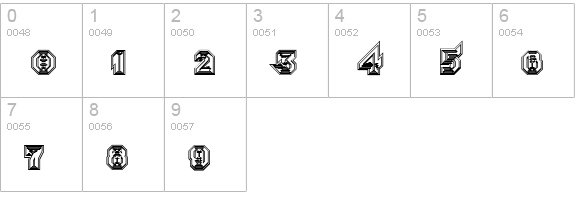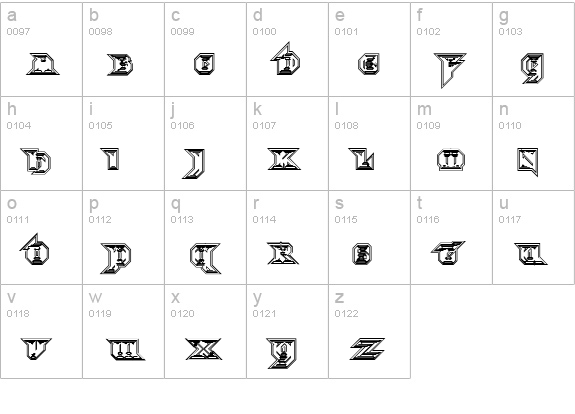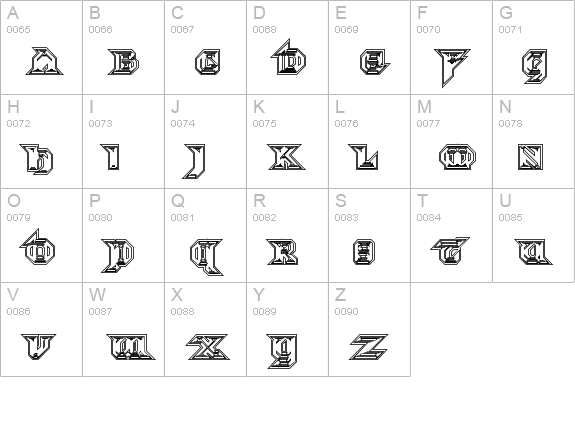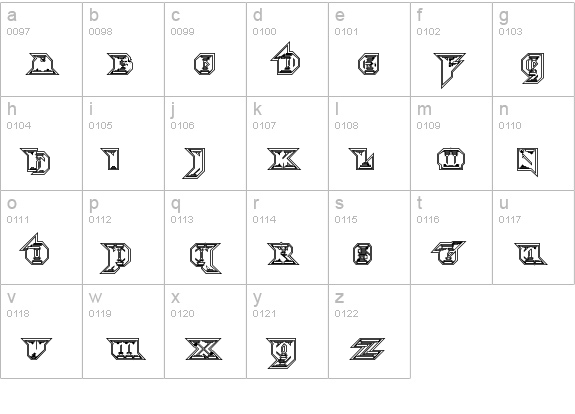
Morbid Fixation Font Details
Introducing Morbid Fixation font, a captivating typeface that combines a sense of macabre elegance with a modern twist. This unique font features sharp, angular letterforms that exude a hauntingly beautiful aesthetic, making it a perfect choice for projects that require a touch of darkness and intrigue. Morbid Fixation font is freely available to download at FontsMarket.com, allowing you to add a touch of gothic charm to your designs without breaking the bank. Whether you're working on a spooky Halloween invitation, a mysterious book cover, or a chilling poster, this font is sure to make a lasting impression. With its intricate details and striking presence, Morbid Fixation font is a versatile choice for a wide range of projects. So why wait? Download this font today and unleash your creativity with its dark and alluring charm.